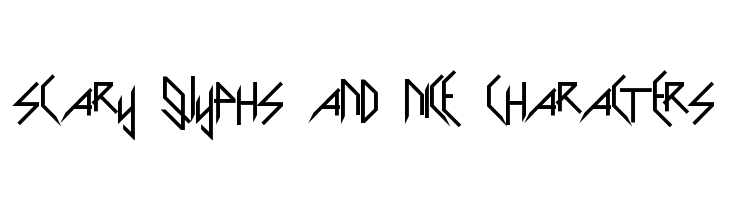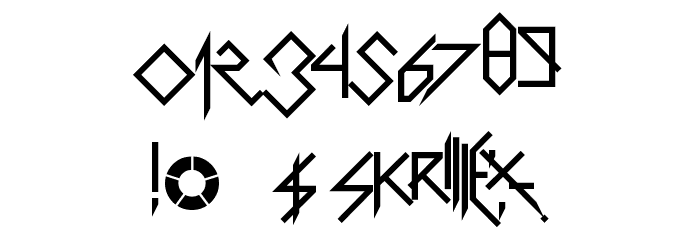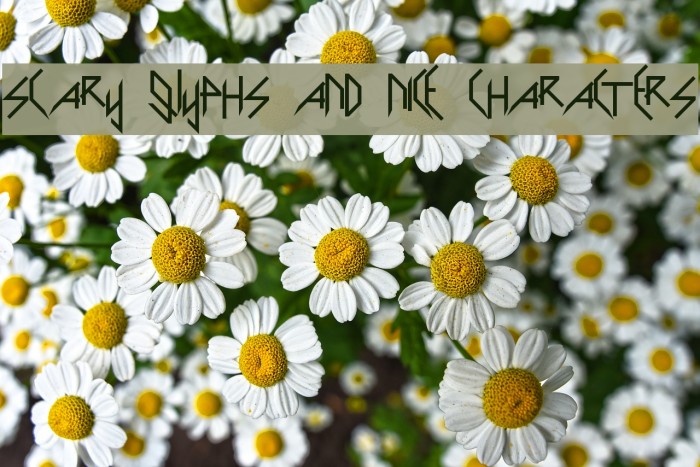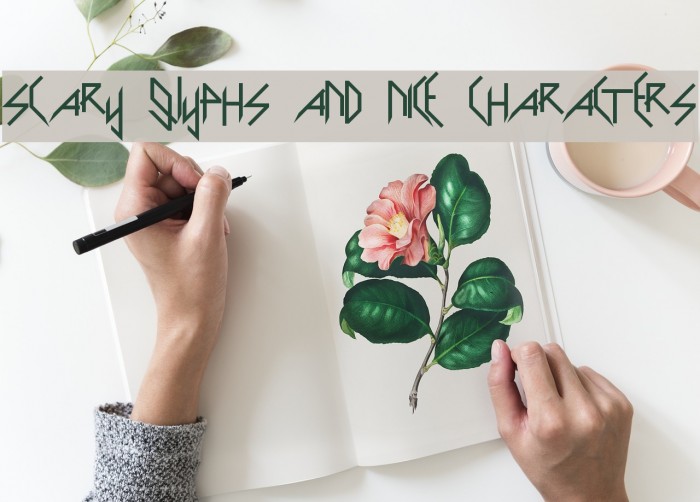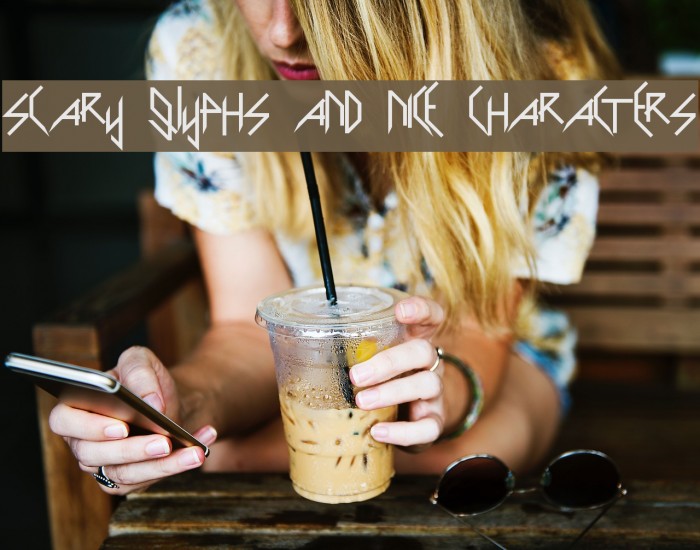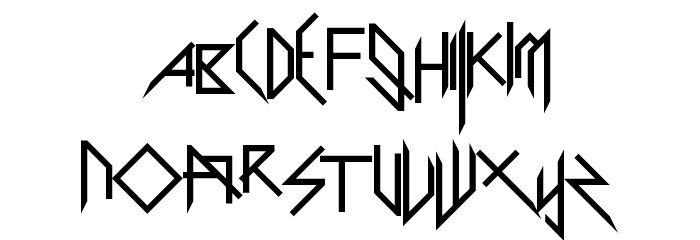
Scary Glyphs and Nice Characters Font
Scary Glyphs and Nice Characters Description
This font features a highly stylized, angular design with sharp edges and a futuristic aesthetic. The characters are constructed with bold, straight lines and pointed tips, giving them a dynamic and aggressive appearance. The uppercase and lowercase letters maintain a consistent style, with a unique geometric flair that sets them apart. Numbers and special characters follow the same design principles, ensuring uniformity across all glyphs. This font is ideal for projects that require a modern, edgy look with a touch of sci-fi or cyberpunk influence.
| Overall Style | Futuristic, Edgy |
| Proposed Projects | Ideal for album covers, video game titles, movie posters, and branding for tech or music-related projects. |